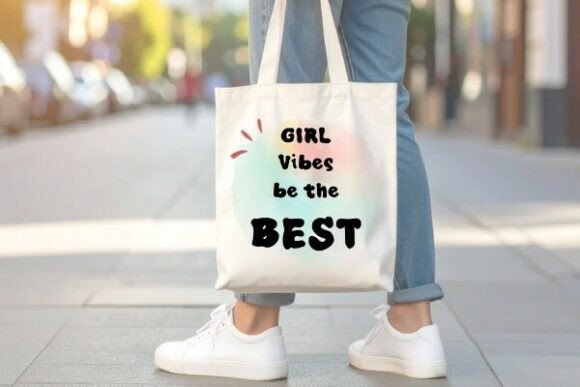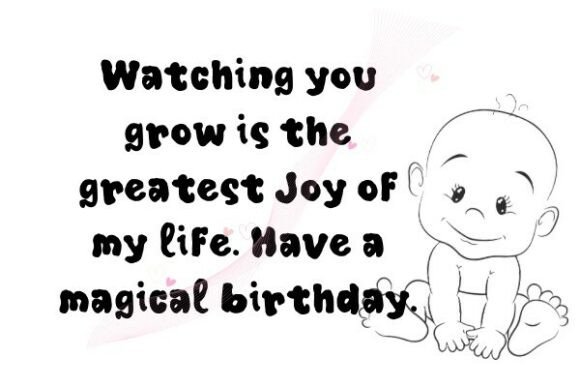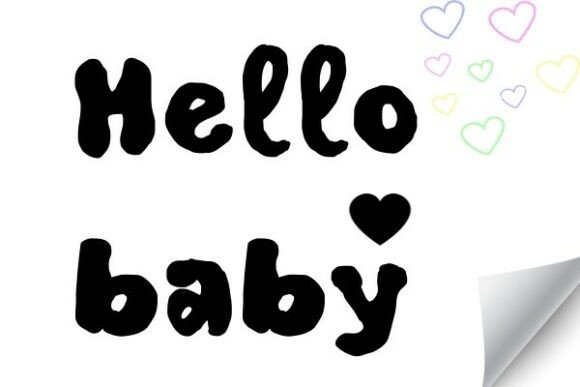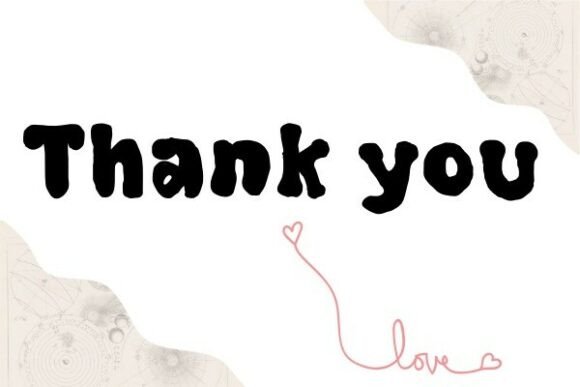
Introducing Assiduous Font: Where Simplicity Meets Boldness
In the world of typography, fonts play a crucial role in conveying messages, expressing emotions, and creating lasting impressions. For designers and crafters, finding the perfect font can be a daunting task. However, if you’re looking for a typeface that embodies simplicity with a bold twist, look no further than Assiduous Font. This delightful font is designed to bring a fresh and organic feel to your designs, making it perfect for a wide range of applications.
The Essence of Assiduous Font
Assiduous Font is characterized by its clean and straightforward design, which is balanced by a bold and playful twist. The natural stroke of the font gives it a warm-hearted touch, making it an excellent choice for designs that require a friendly and approachable tone. Whether you’re working on a fun-loving project or a more serious one, Assiduous Font is sure to captivate your audience and leave a memorable impression.
Ideal Applications for Assiduous Font
So, where can you use Assiduous Font to make a lasting impact? Here are some ideal applications for this versatile typeface:
- Greeting Cards: Add a playful touch to your greeting cards with Assiduous Font. Its bold and cheerful design makes it perfect for birthdays, holidays, and other celebrations.
- T-Shirt Prints: Create eye-catching T-shirt designs with Assiduous Font. Its fun and carefree vibe is sure to appeal to a wide range of audiences.
- Coffee Cup Labeling: Give your coffee cups a personal touch with Assiduous Font. Its natural stroke and warm feel make it perfect for labeling coffee cups, adding a human touch to your brand.
- Mock-Ups and Design Showcases: Use Assiduous Font to create stunning mock-ups and design showcases. Its bold and playful design is sure to grab attention and showcase your creativity.
Why Choose Assiduous Font?
With so many fonts available, why choose Assiduous Font? Here are just a few reasons why designers and crafters love this typeface:
- Unique Blend of Simplicity and Boldness: Assiduous Font offers a refreshing combination of simplicity and boldness, making it perfect for designs that require a striking yet approachable tone.
- Organic Feel: The natural stroke of Assiduous Font gives it an organic feel that’s hard to find in digital fonts. This makes it perfect for designs that require a human touch.
- Versatility: Assiduous Font is incredibly versatile, making it suitable for a wide range of applications, from greeting cards to coffee cup labeling.
Tips for Using Assiduous Font
To get the most out of Assiduous Font, here are some tips to keep in mind:
- Experiment with Colors: Assiduous Font looks great in a variety of colors. Experiment with different hues and combinations to find the perfect look for your design.
- Play with Sizes: Don’t be afraid to play with different font sizes to create visual interest and hierarchy in your design.
- Combine with Other Fonts: Assiduous Font pairs well with other fonts. Experiment with different combinations to create a unique and striking look.
In conclusion, Assiduous Font is a game-changer for designers and crafters looking for a typeface that embodies simplicity with a bold twist. Its organic feel, versatility, and unique blend of simplicity and boldness make it perfect for a wide range of applications. Whether you’re working on a fun-loving design or a more serious one, Assiduous Font is sure to captivate your audience and leave a memorable impression. So why wait? Give Assiduous Font a try today and take your designs to the next level!